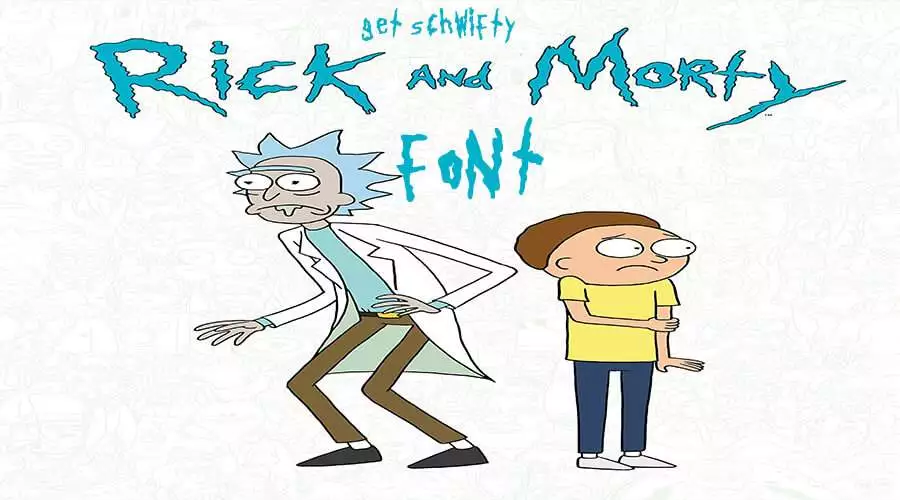
Rick and Morty Font
What is Rick and Morty Font? Rick and Morty is an American animated science fiction sitcom by Mr. Justin Roiland and Dan Harmon, first released on 2nd December 2013. The font used in the cover logo of this sitcom was very attractive and the demand for it increased a lot. That is why today we have appeared among you with this font.
The font used for Rick and Morty’s cover is called The Get Schwifty Font. Mr. Jonizaak designed this font. It is included in the Fancy Horror font family for its rough and immature texture. With 62 numbers of characters including uppercase, lowercase, and numbers “Get Schwifty Font” has a different look. Mr. Jonizaak gives this font a light dense texture with a kind of dangerous look that makes its typeface elegant and attractive to the viewer. Misfits font is mostly similar to this font. And Wubba Lubba Dub Dub is another font inspired by the Rick and Morty logo.
You can use this font for various purposes. It is especially useful in designing works. From posters to invitation cards, it is very easy to use. You can also design a logo with this font. If you are a game developer then this font will be at the top of your list of favorites. I think it’s a good font for banners and brochures too.
YouTubers can also use this font to make their YouTube content more attractive. They can use this font in their YouTube thumbnails and channel art.
What type of font is “Rick and Morty”?
Ans: Rick and Morty is a Fancy, Horror typeface font.
Rick and Morty font is a fun and quirky typeface that captures the essence of the show. It is not officially released to the public, but you can still use it by using our generator or downloading some fan-made fonts. The font is versatile and can be used for various projects that need a touch of humor, creativity, or sci-fi. You can them out for free on our font generator.